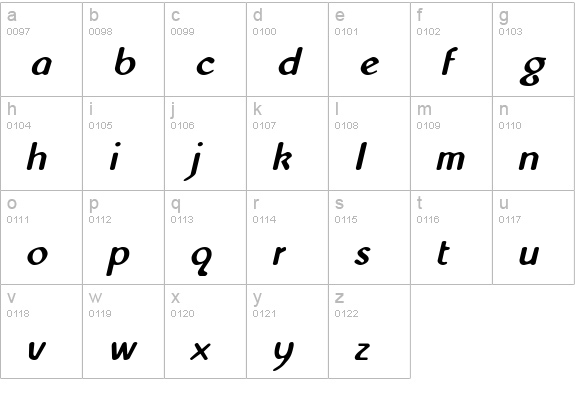
Westminster Italic Font Details
Westminster Italic is a distinctive, italic variant in the Westminster typeface family \xE2\x80\x94 well suited to design and typography projects.
Westminster Italic font is a stunning typeface that exudes elegance and sophistication. With its sleek and slanted design, it adds a touch of modernity to any project. The italicized letters create a sense of movement and fluidity, making it perfect for conveying a sense of dynamism and energy. This font is not only visually appealing but also highly versatile. Whether it's used for branding, advertising, or editorial purposes, Westminster Italic font makes a bold statement. Its unique and distinctive style sets it apart from other typefaces, making it suitable for a wide range of creative projects. One of the best things about Westminster Italic font is that it is free. Yes, you read that right! This exquisite font is freely available to download at FontsMarket.com. Now, you can add a touch of sophistication to your designs without having to spend a penny. This makes it an ideal choice for designers, artists, and anyone in need of a high-quality font without breaking the bank. So why wait? Enhance your designs with the beauty and elegance of Westminster Italic font. Download it for free today at FontsMarket.com and let your creativity soar. Whether it's for print or digital media, this font is sure to leave a lasting impression on your audience.